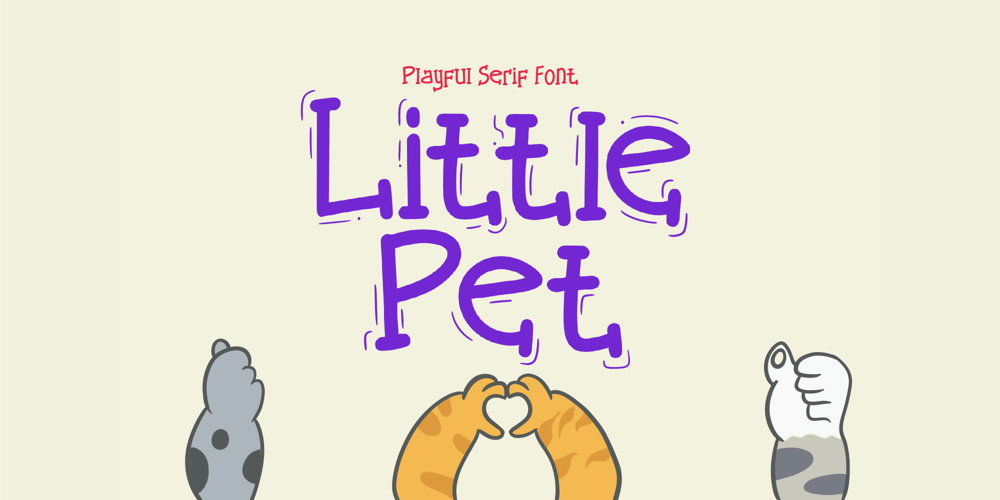
Little Pet Font Family was designed by Wahyu Aji Prasetyo and published by WAP Type. Little Pet contains 1 styles and family package options. Little Pet is a fun and cute kids handwritten font, perfect for invitations, birth announcements, logo design, stickers, quotes and much more!Features Uppercase and lowercase letters Accented characters Thank you for your interest!